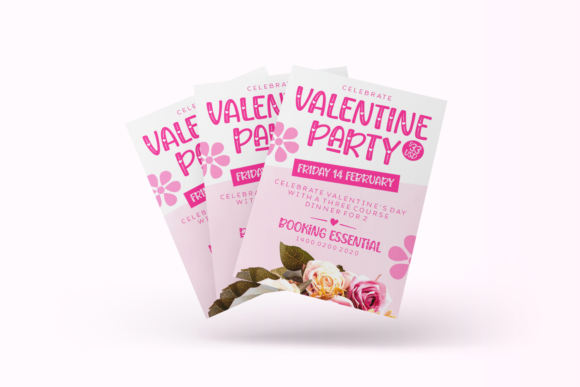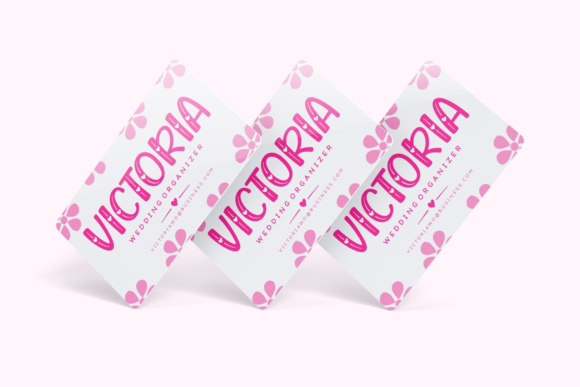
Loving Hollydate Font
db-ku.com - Script & Handwritten -- Loving Hollydate is a lovely handwritten font with fun style. It will add a romantic touch to any crafting project!